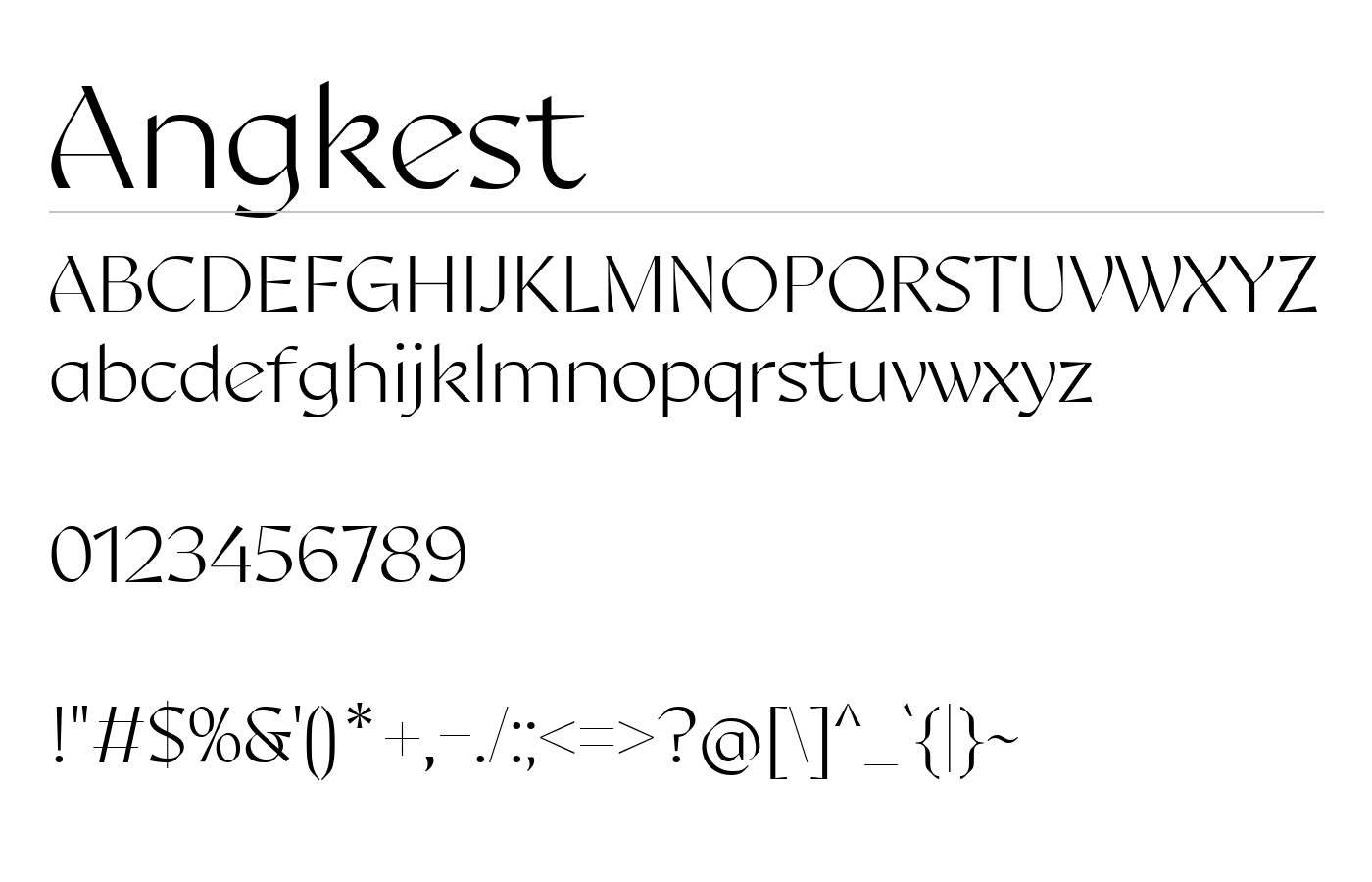
Angkest is a sleek, modern serif font with high contrast between thick and thin strokes, featuring sharp, elegant serifs and a refined, artistic flair. Its tall, narrow letterforms and delicate curves give it a sophisticated yet contemporary feel, making it ideal for luxury branding, editorial headlines, and stylish packaging where a distinctive, classy impression is desired. This font stands out with its unique character details and graceful proportions, perfect for conveying elegance and creativity.
Angkest Font
About Angkest Font
| Font family | Angkest Font |
| Designer | Mokatype 2022 - Adriansyah - Abdul Malik |